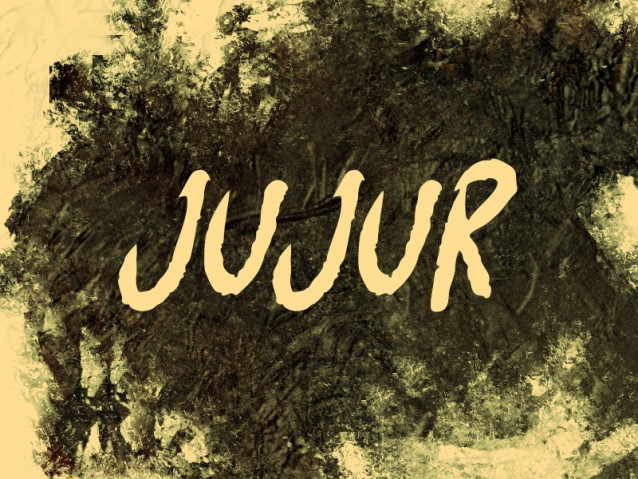
Jujur Font
Jujur Font is a simple and modern display font suitable for quotes, logos, headings, titles, and many more. Use it on any of your creative projects, and your designs will become outstanding!